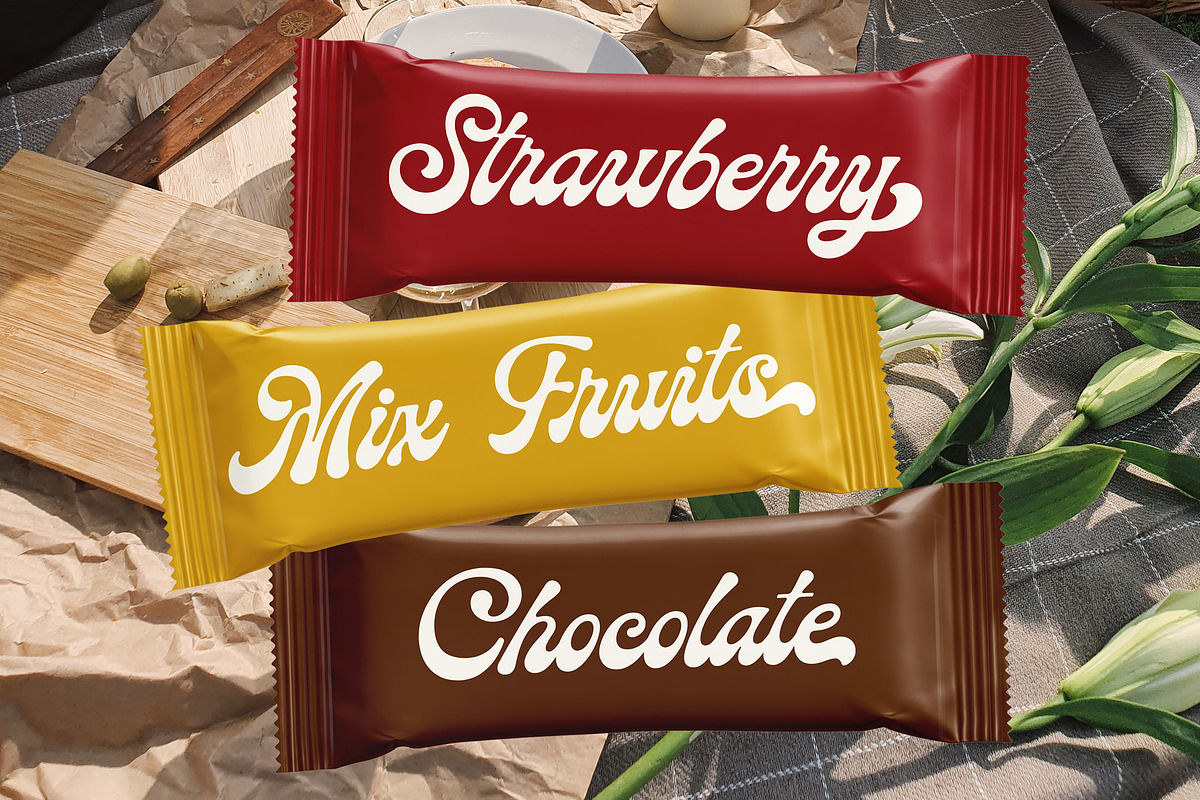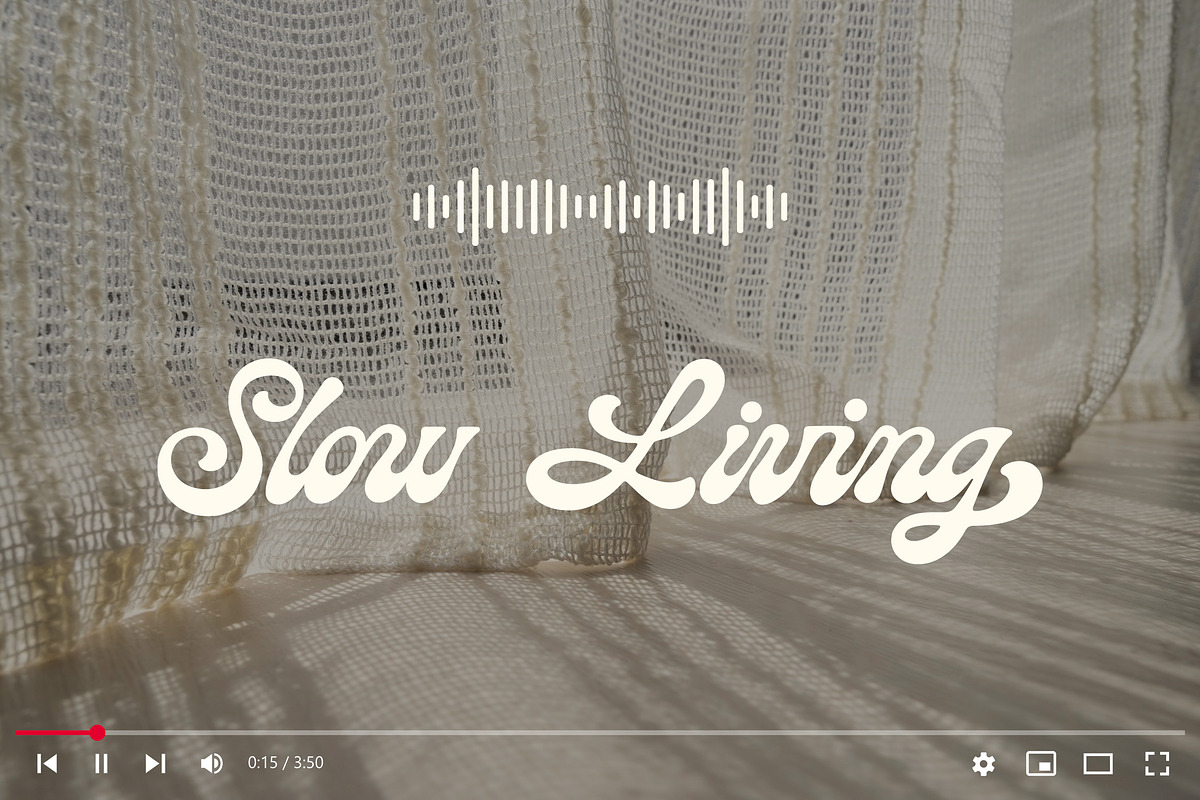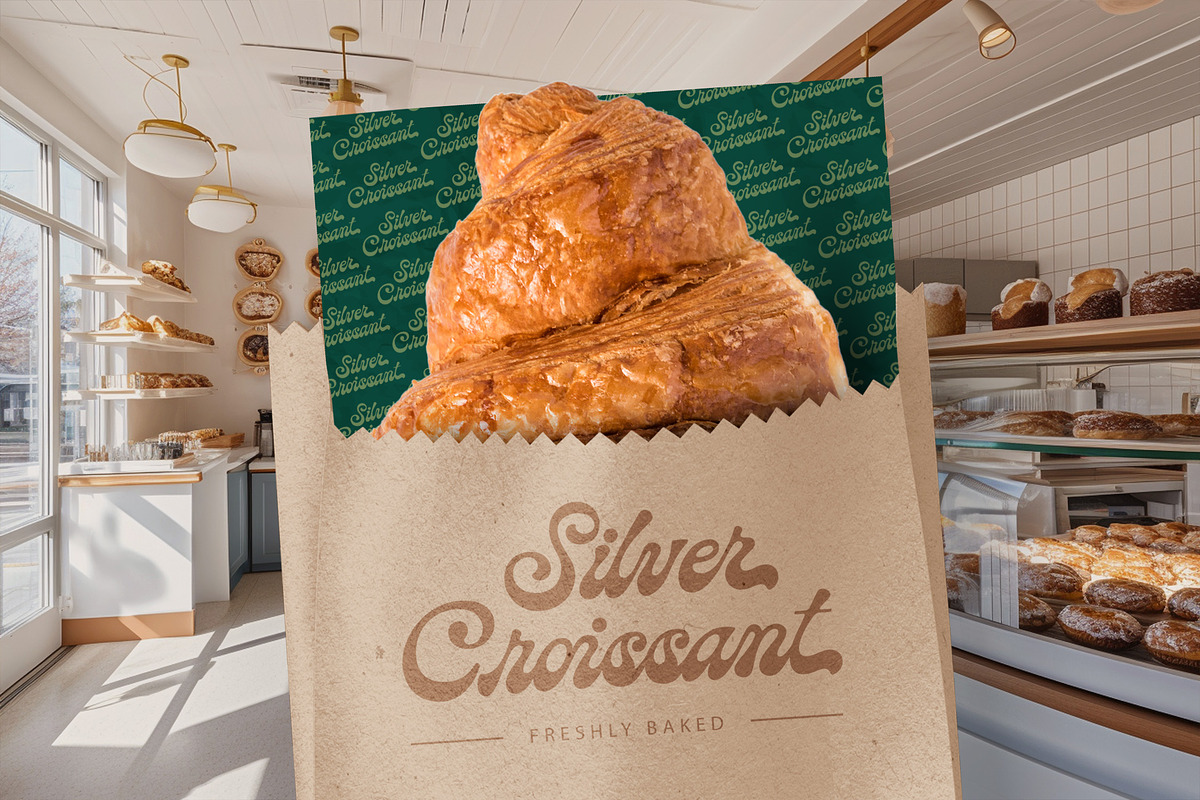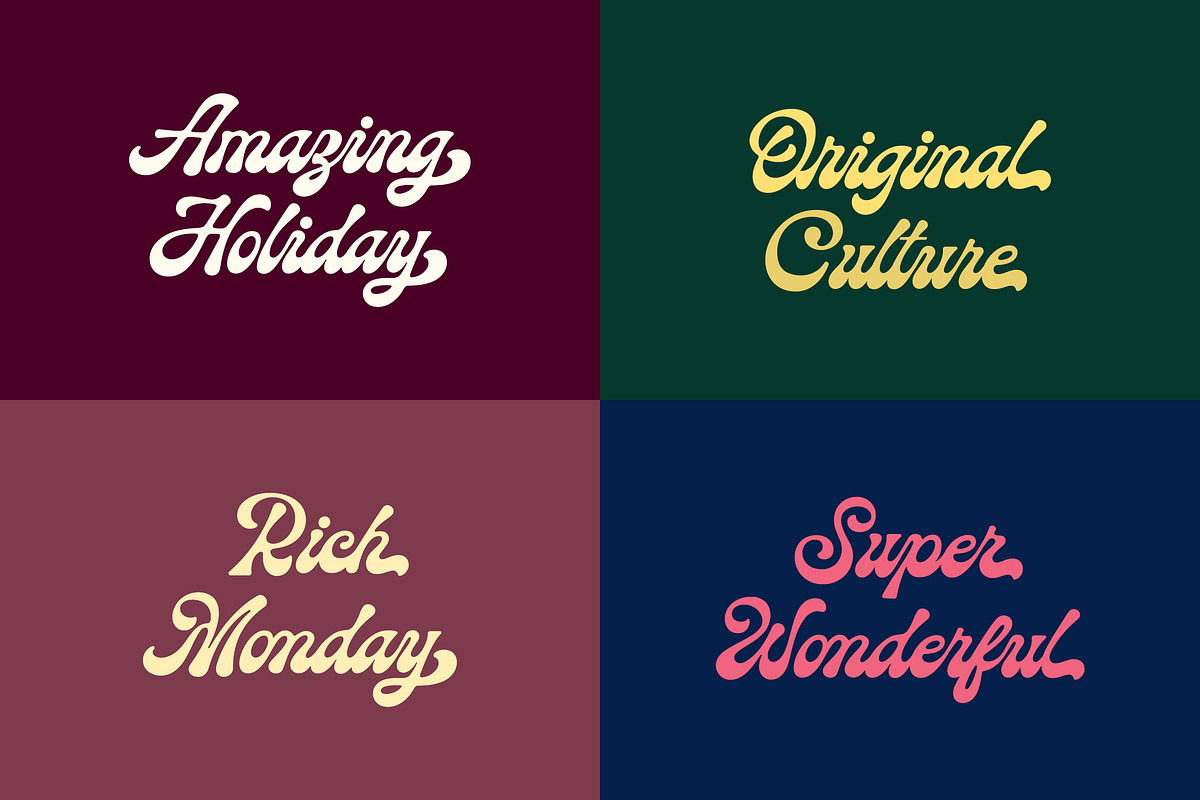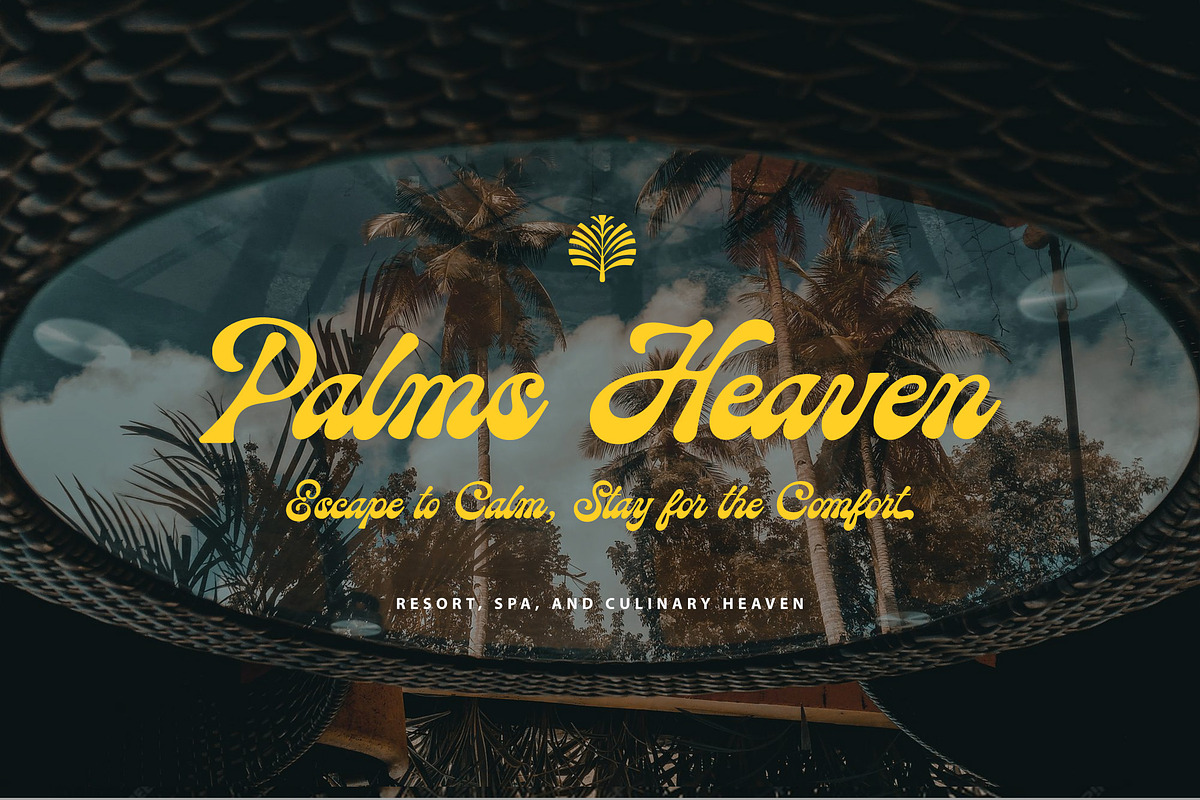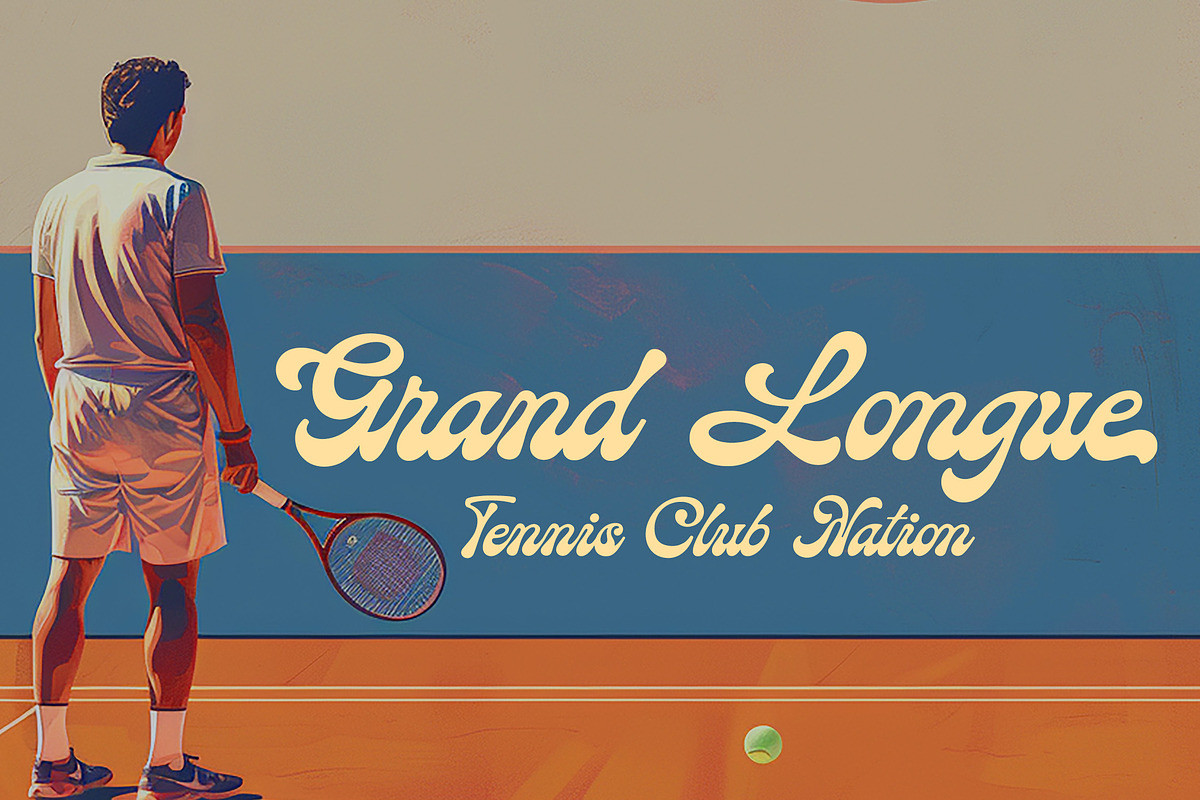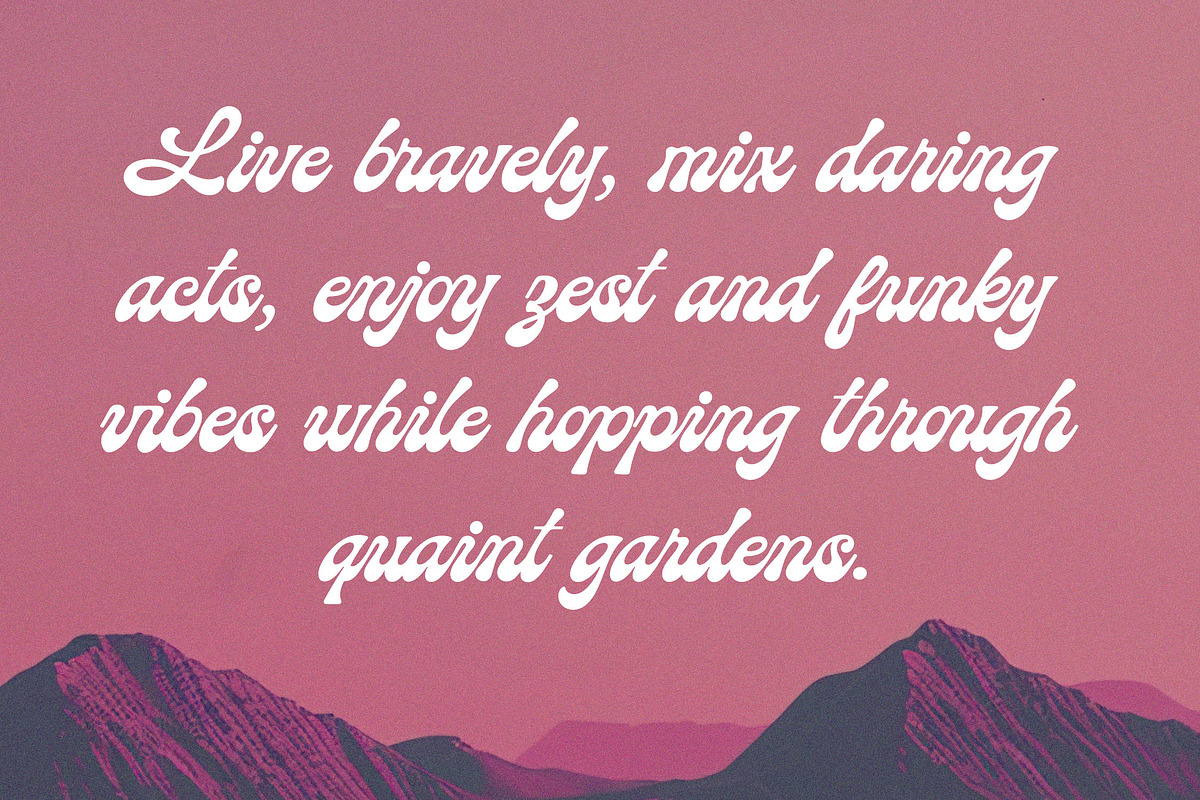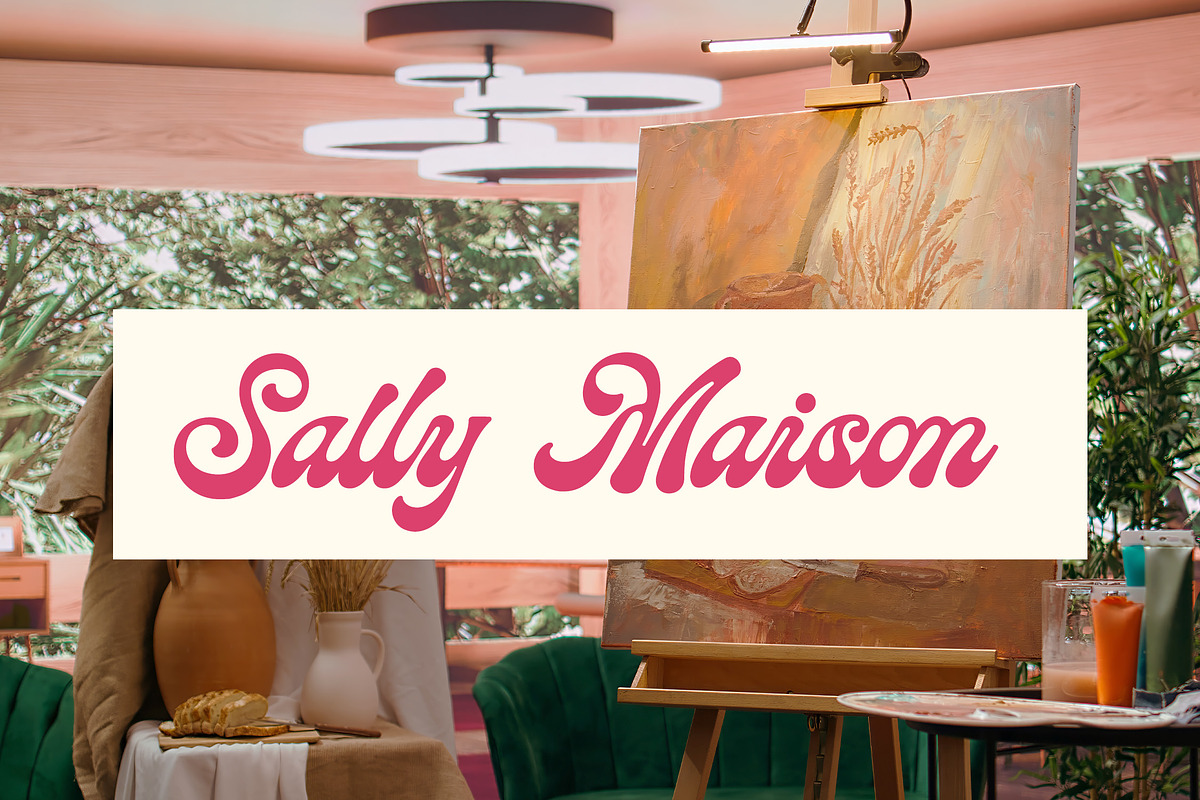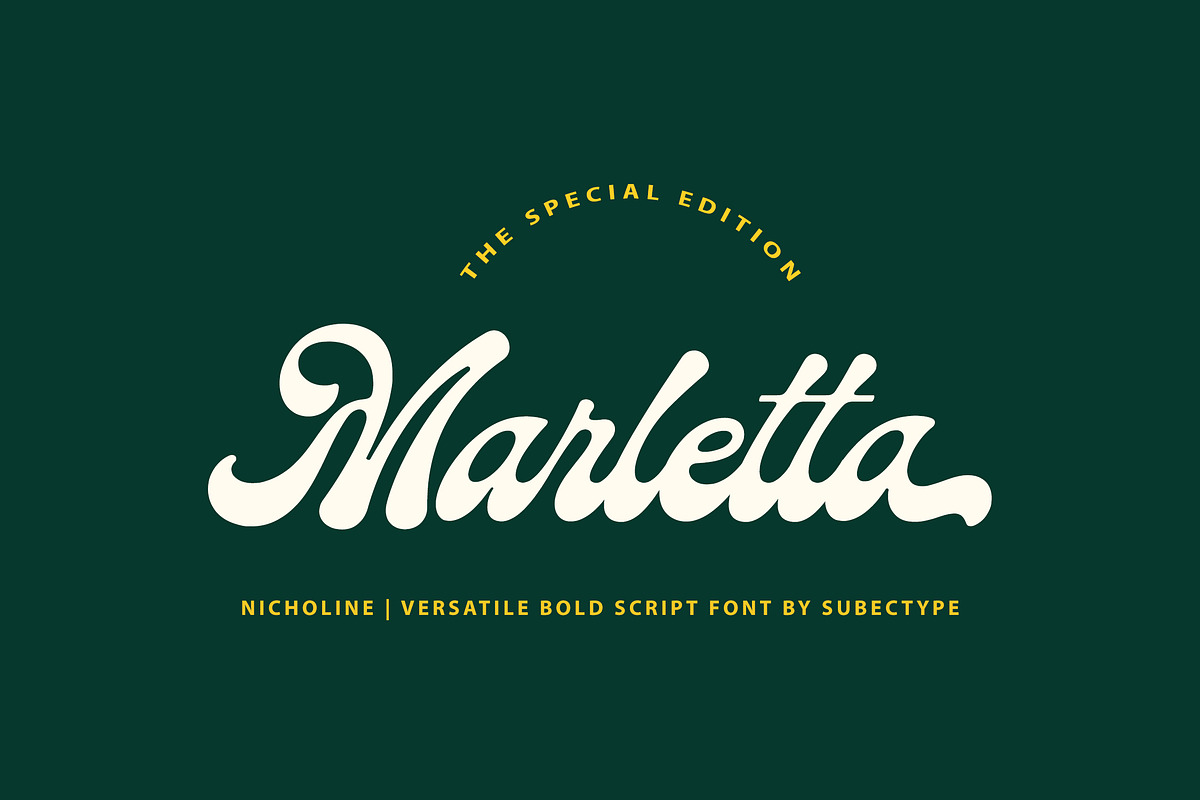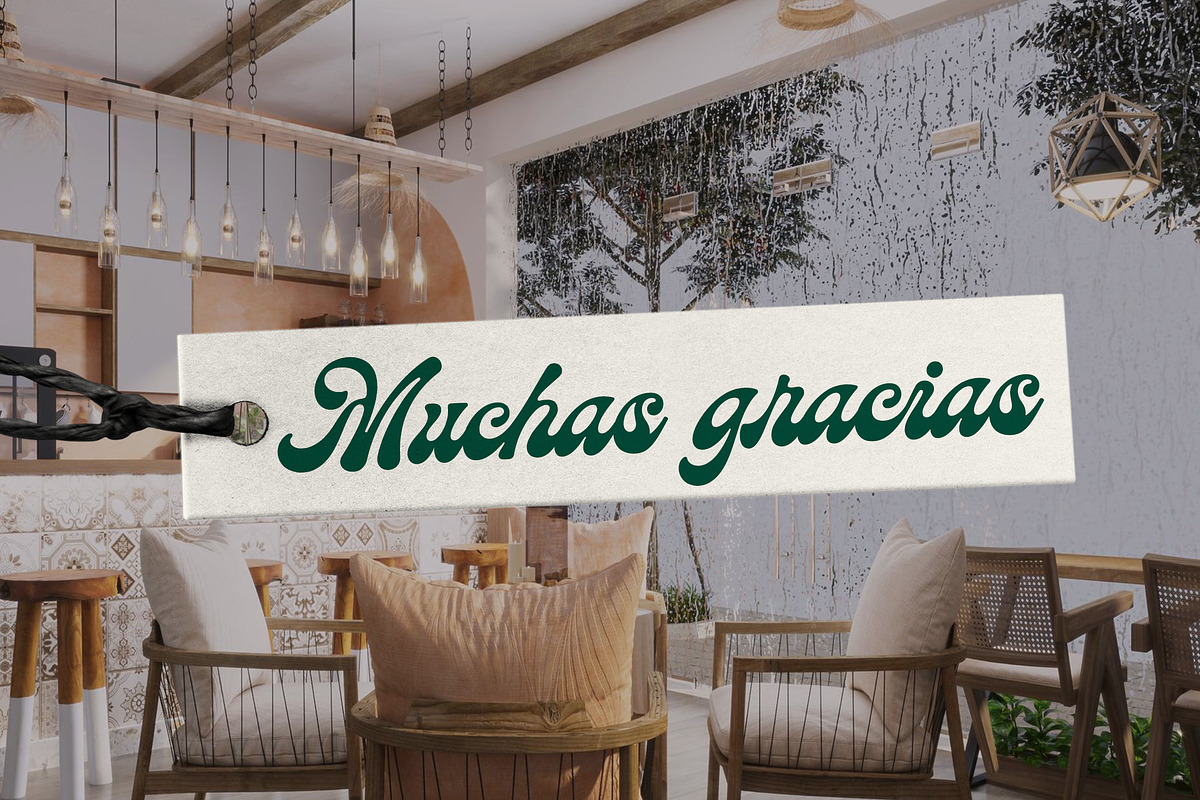
Nicholine - Vintage Retro Font
"Nicholine" is a cozy, modern retro font that captures the warmth of nostalgia while offering a contemporary touch. It features rounded edges and playful curves, making it perfect for designs that aim to evoke comfort and familiarity. Ideal for branding, invitations, and various creative projects, this font combines a friendly aesthetic with legibility, making it a delightful choice for any design needing a touch of warmth and charm.